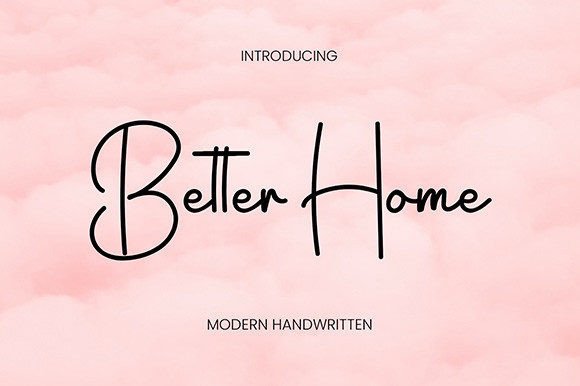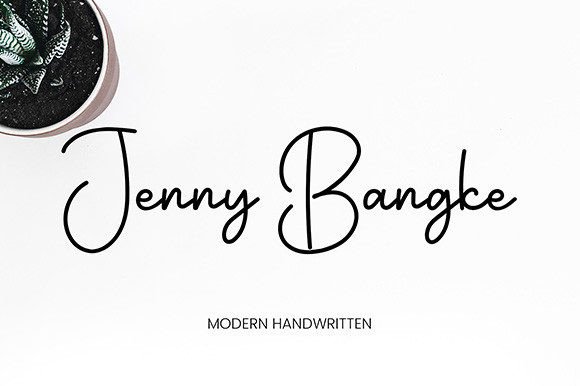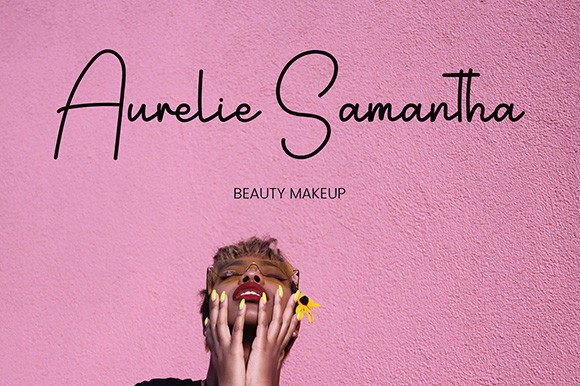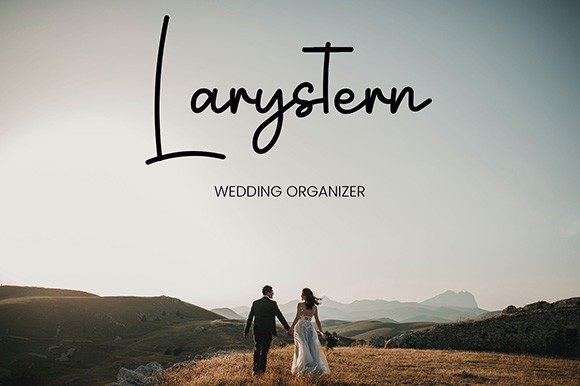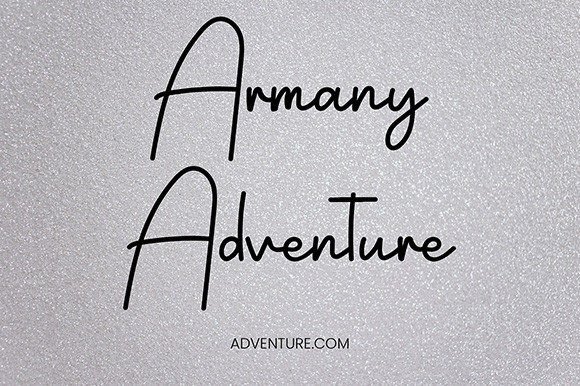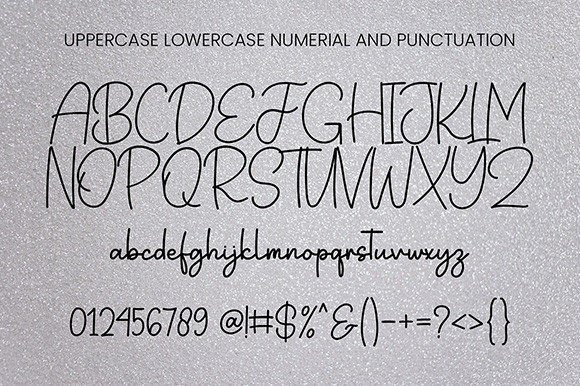
Better Home Font
What Is Better Home Font?
Better Home Font is a modern handwritten script designed to give your projects an elegant, stylish feel. Each letter has smooth, balanced curves that feel both contemporary and timeless. Because of its versatile style, this font is perfect for designs that need a refined yet approachable look.
You will quickly see how Better Home elevates your creations with its clean, polished character.
Better Home is a flexible font you can use in many creative ways. For example, it works beautifully for logos and branding. Its sleek handwritten look makes your brand feel modern and professional.
In addition, it’s great for quotes and social media graphics. If you want your words to stand out and feel inspiring, Better Home helps you create engaging visuals.
You can also use it for blog headers and website banners. The smooth script brings a warm, inviting tone that keeps your content looking cohesive.
When you design invitations or stationery, Better Home makes every detail feel thoughtful and personal. Even simple notes look special with this refined style.
Moreover, it’s perfect for fashion labels, product packaging, posters, and more. Your designs will feel unique and stylish every time.
Why Should You Choose Better Home Font?
There are many reasons to consider Better Home for your next project. First, it’s easy to read at any size. Whether you use large titles or smaller text, every letter stays clear and elegant.
Also, Better Home pairs nicely with minimalist serif or sans-serif fonts. This helps you create layouts that look balanced and contemporary.
Designers love that it looks polished right out of the box, saving time while delivering high-quality results.
Better Home Font adds sophistication and personality to every project. For example, when you want your designs to feel modern and elegant, this font makes it effortless.
Even minimalist layouts look more engaging with Better Home’s smooth, stylish strokes. Whether you create branding, packaging, or digital content, your work will stand out.
Using a premium handwritten font also shows your commitment to detail and design quality. This builds trust with your audience and makes your creations more memorable.
Better Home Font is more than just a typeface—it’s a design asset that helps you share ideas with clarity and style. From logos and invitations to blog headers and social media graphics, this font adapts easily and leaves a lasting impression.